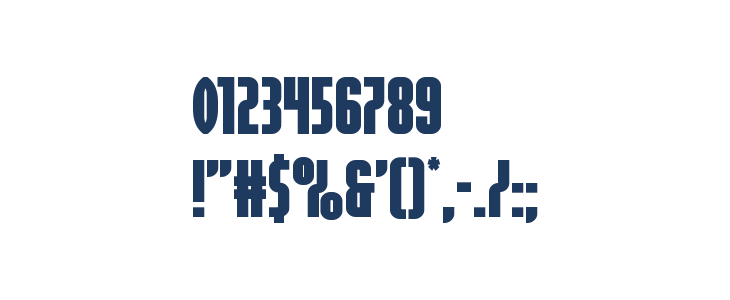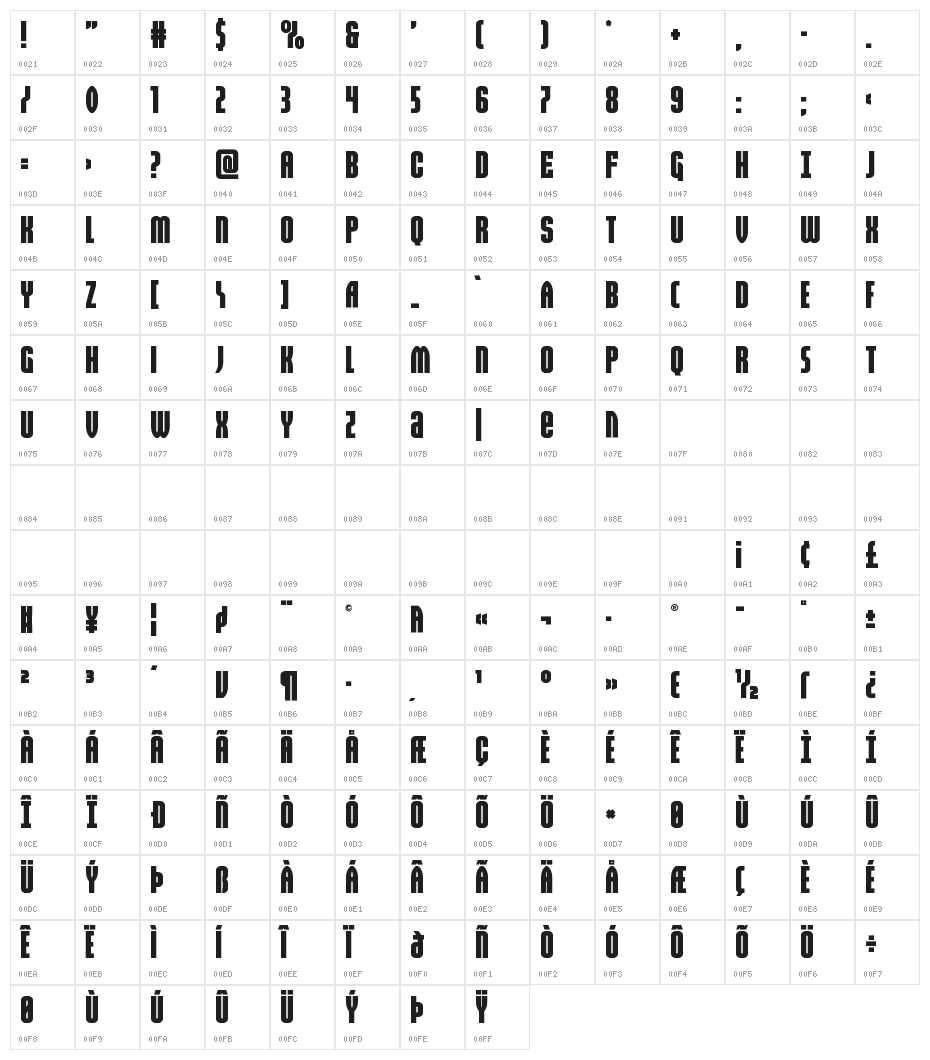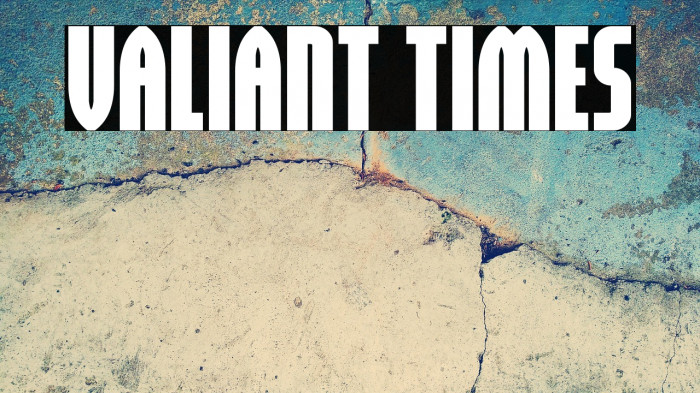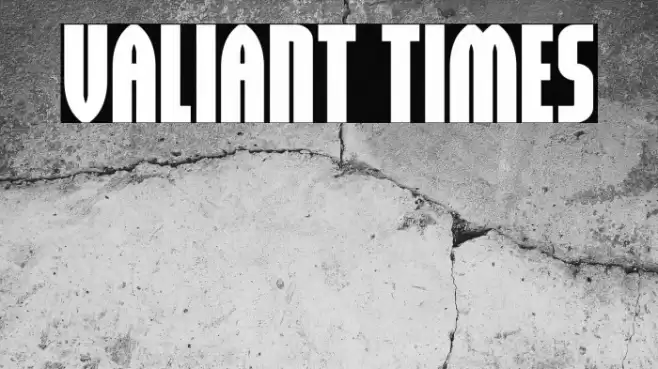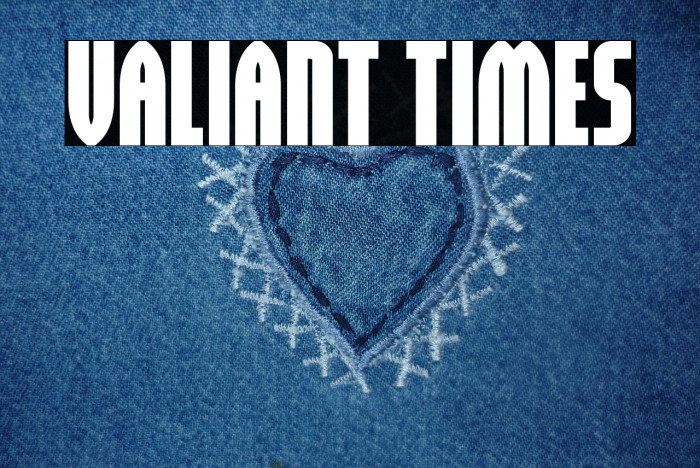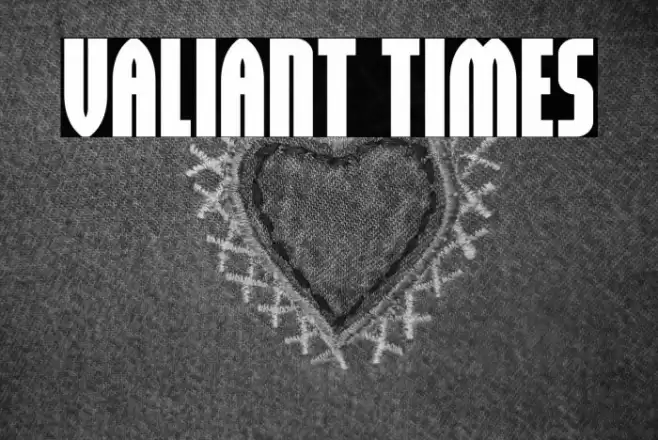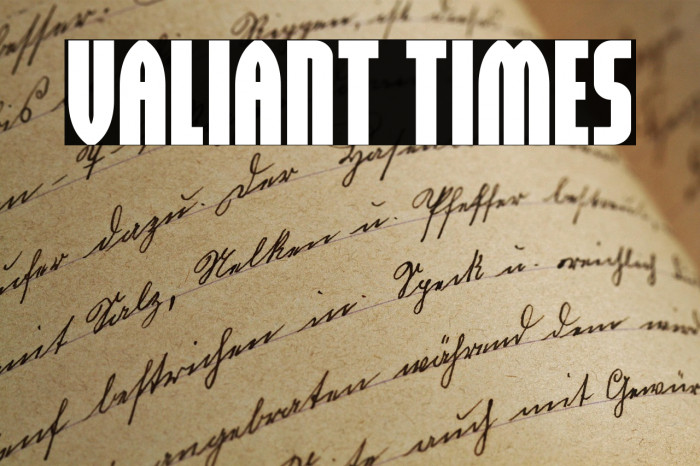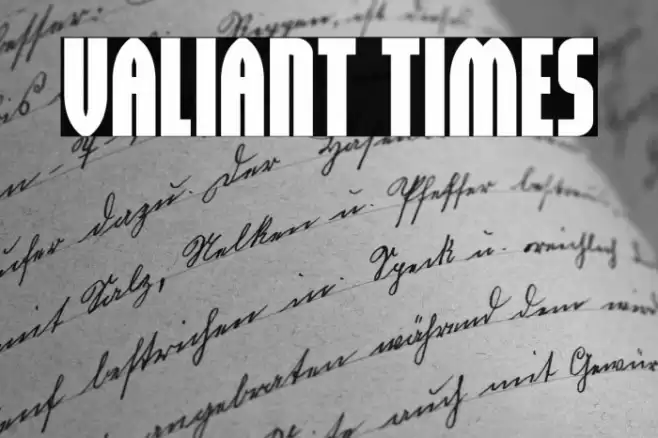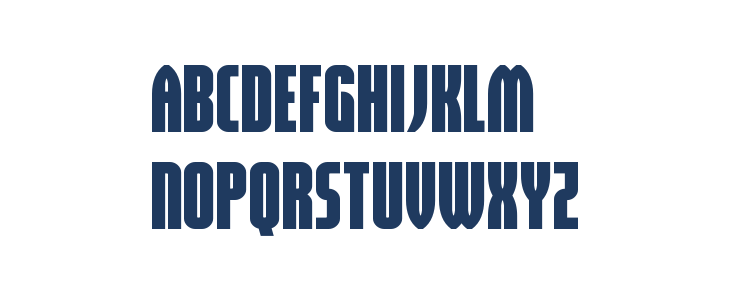
Valiant Times Font
Valiant Times Description
This font features a bold and impactful design, characterized by thick, block-like letters that convey strength and authority. The uppercase and lowercase letters maintain a consistent width, creating a uniform appearance. The numbers and special characters are designed with the same boldness, ensuring a cohesive look across all characters. The font's strong vertical lines and minimal curves give it a modern and assertive feel, making it ideal for attention-grabbing headlines and statements.
| Proposed Projects | Ideal for posters, headlines, branding materials, and any design requiring a strong, impactful presence. |